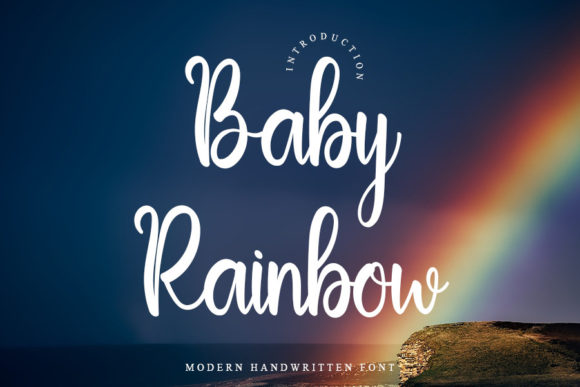
Get ready to captivate your audience with Baby Rainbow Font, the enchanting script font that exudes elegance and charm. Inspired by the timeless art of calligraphy, Baby Rainbow is a handwritten masterpiece that adds a personal touch to your designs.
With its meticulously crafted curves and graceful strokes, Baby Rainbow effortlessly elevates the beauty of your projects. Whether you're designing wedding invitations, creating logos, crafting social media graphics, or adding a whimsical touch to your branding, Baby Rainbow will make your words shine.
Embrace the modern vibe of Baby Rainbow, a font that effortlessly blends classic charm with contemporary style. Its balanced and varied design ensures that every letter is a work of art, adding a touch of sophistication to your creations.
Let Baby Rainbow's spotless form enhance the visual appeal of your projects. Its carefully executed lines and curves create a harmonious balance, ensuring that your designs stand out with a touch of timeless elegance.
Immerse yourself in the world of Baby Rainbow, a font that sparks creativity and ignites your imagination. Explore endless possibilities as you bring your designs to life, knowing that Baby Rainbow will add a touch of magic to every project.